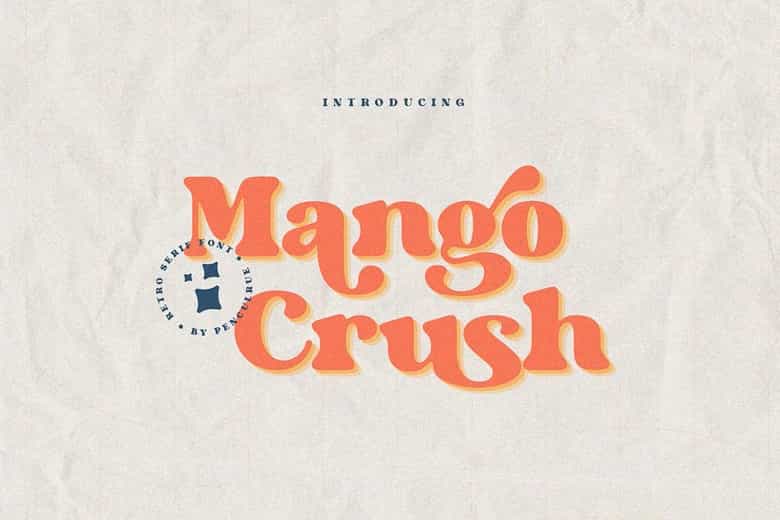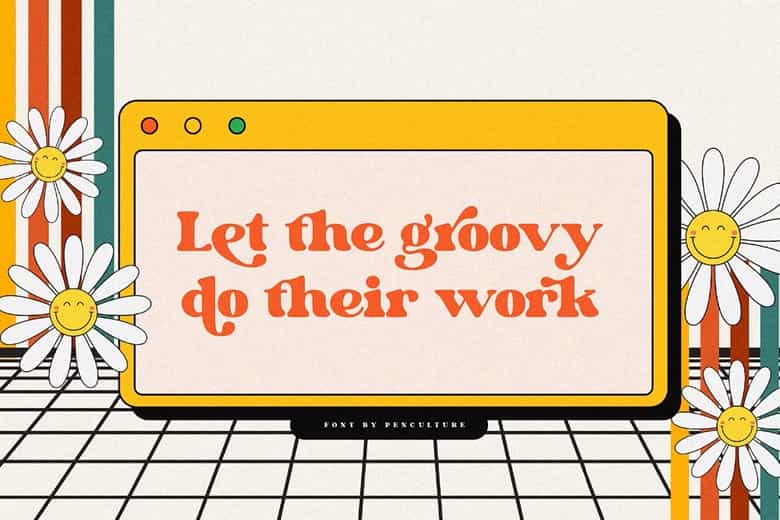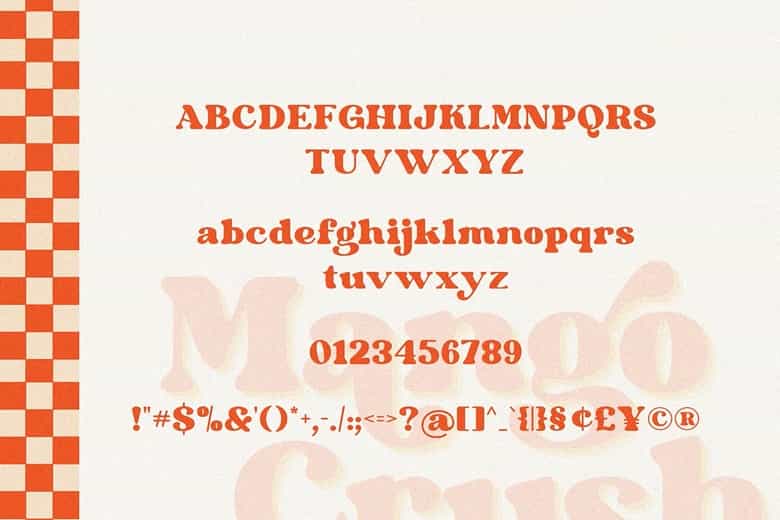
Mango Crush – is a modern retro serif typeface with a smooth curve. Each shape of the letter has the groovy and the sweetness of this font. Mango Crush can be used for any design project such as branding, logo design, invitation and embroidery projects.